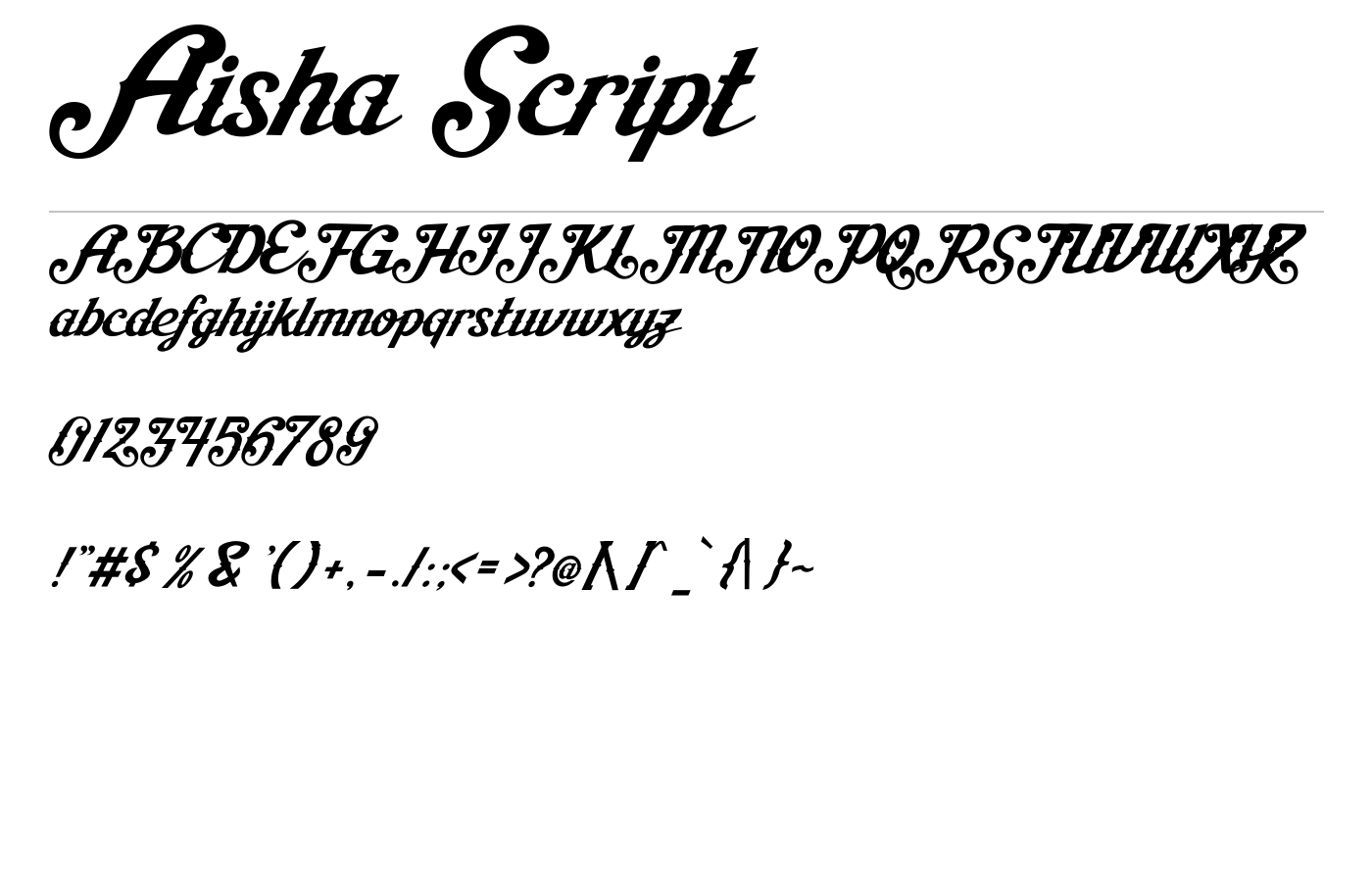
Aisha Script is a bold and elegant script font with a vintage flair, featuring smooth, flowing strokes and decorative curls that add a touch of sophistication. Its strong contrast and italicized slant make it ideal for stylish branding, logos, and headlines that seek a classic yet distinctive personality. This font works well in projects aiming for a refined, artistic, and somewhat nostalgic feel.
Aisha Script Font
About Aisha Script Font